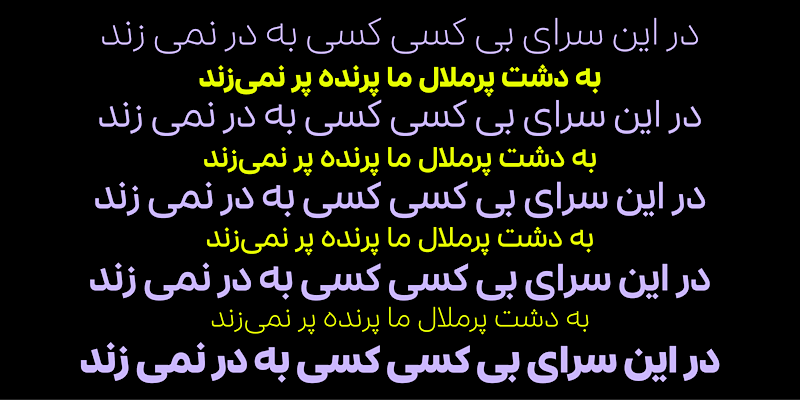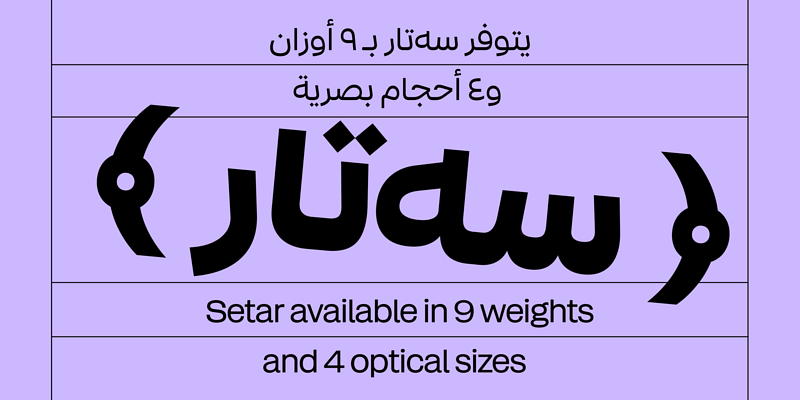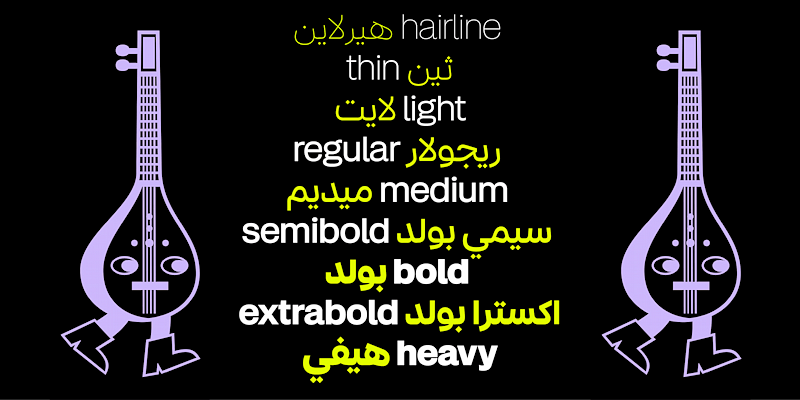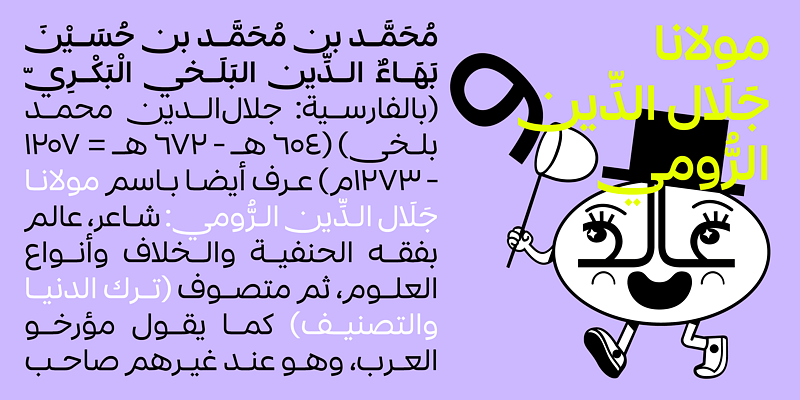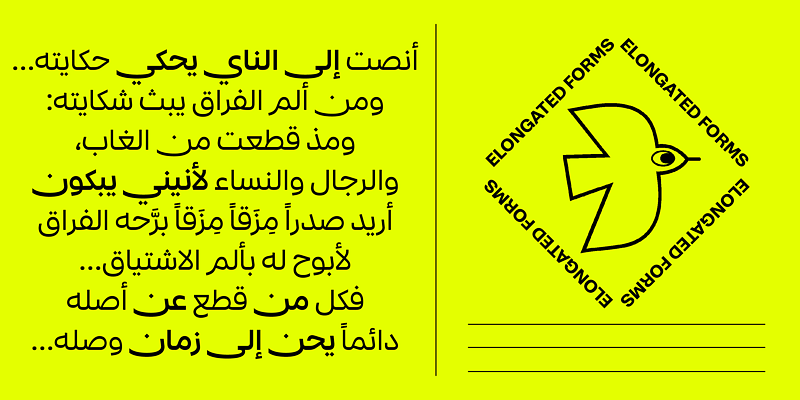
Setar is a workhorse font family; 9 weights and 4 optical sizes that supports the character requirements in Arabic, Persian, Urdu, and more languages. Its styles range from restrained text to assertive display, and as the optical size increases, the skeletons of the characters widen, counters become more open, and dots increase in size. Based on design principles of simplified Naskh and the prioritisation of legibility in this style of Arabic calligraphy, Setar is comfortable for use both on screen and in print.